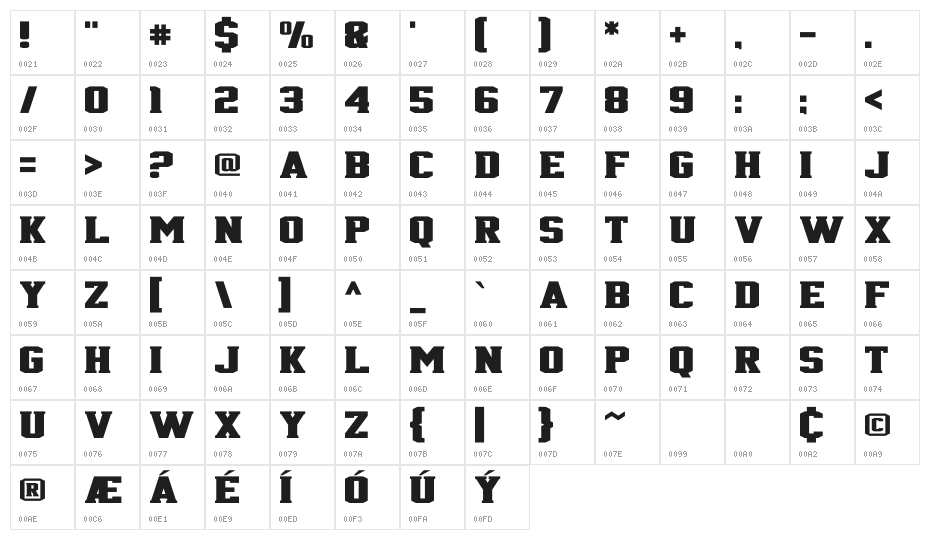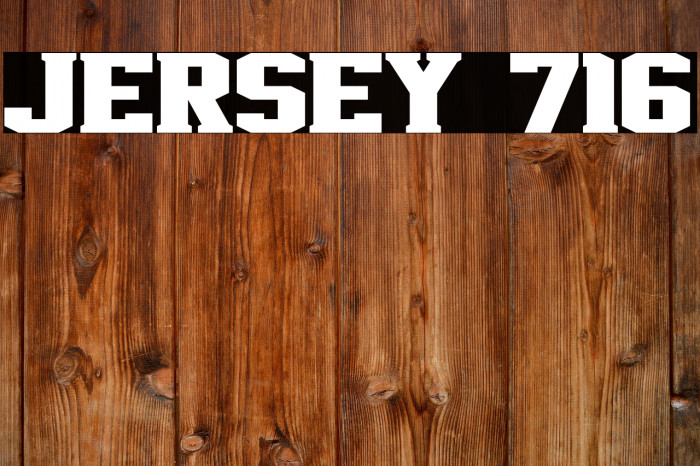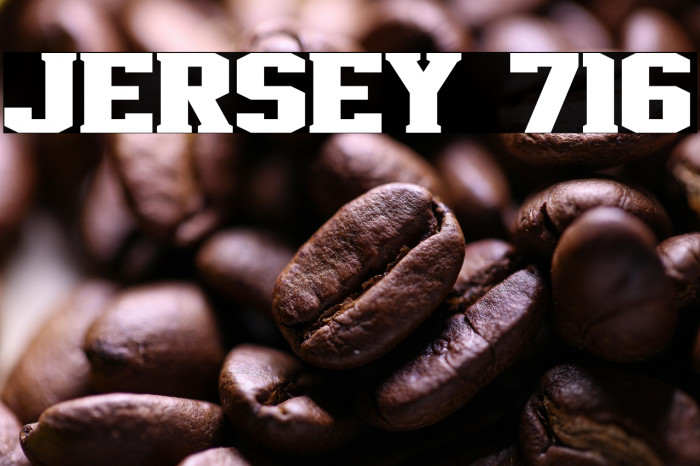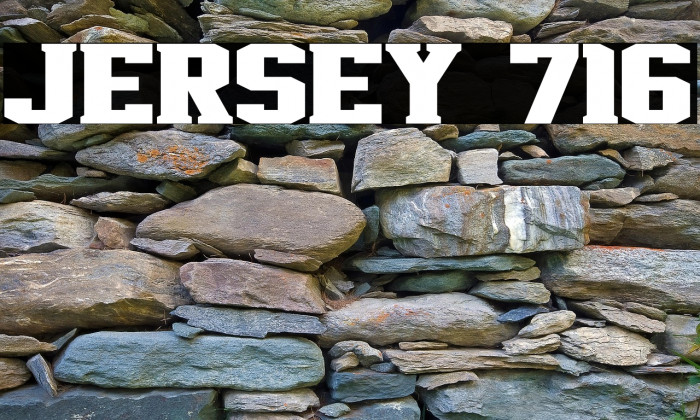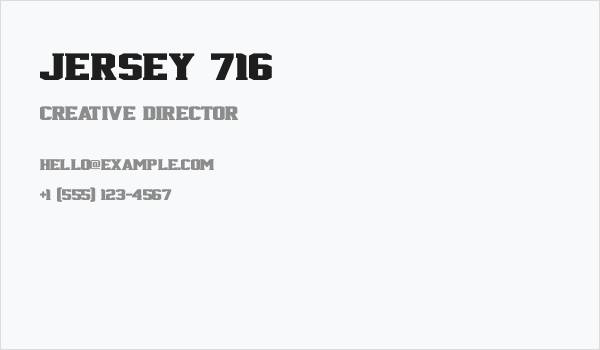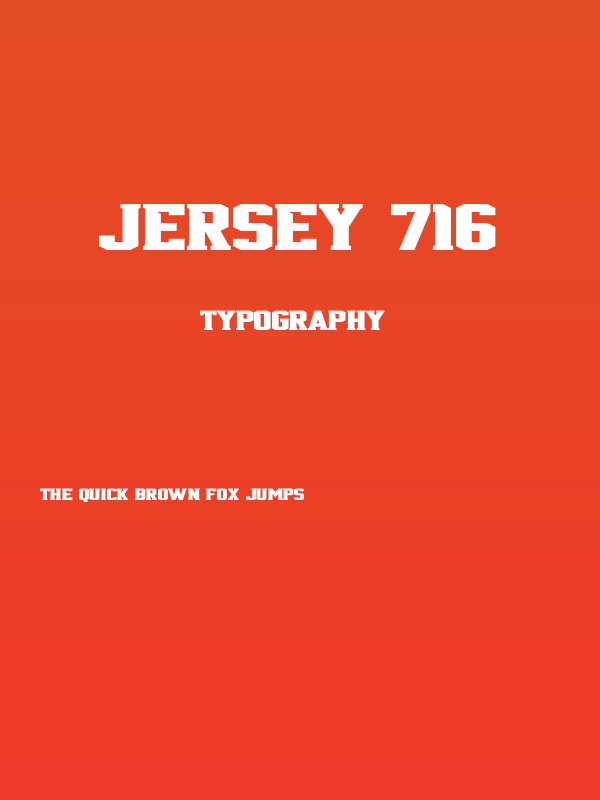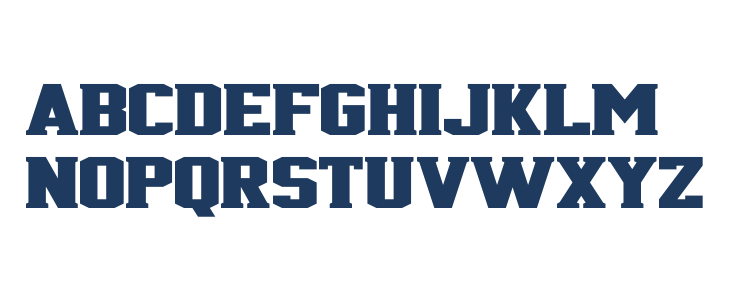
Jersey 716 Font
Jersey 716 Description
This font features a bold and impactful design with strong geometric shapes and a blocky appearance. The characters are uniformly wide, creating a sense of stability and strength. The uppercase letters are particularly prominent, with sharp angles and a slightly condensed form that enhances their boldness. The numbers and special characters follow the same robust style, ensuring consistency across all elements. This font is ideal for projects that require a strong visual presence and a sense of authority.
| Proposed Projects | Ideal for sports jerseys, team logos, posters, and any design needing a bold statement. |